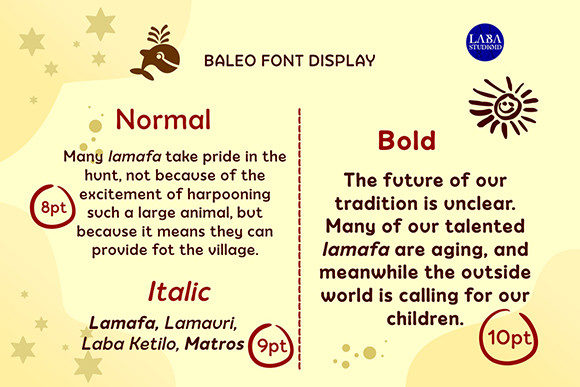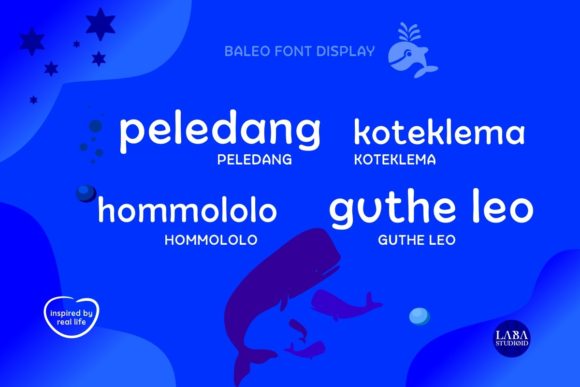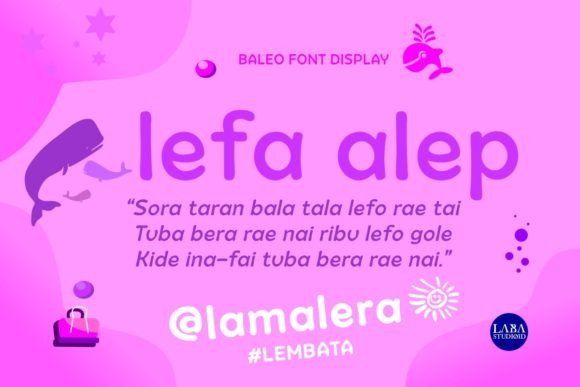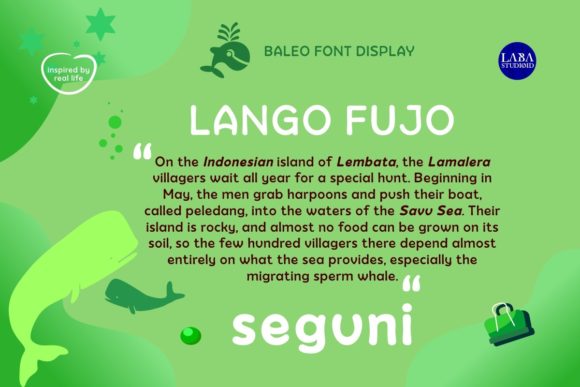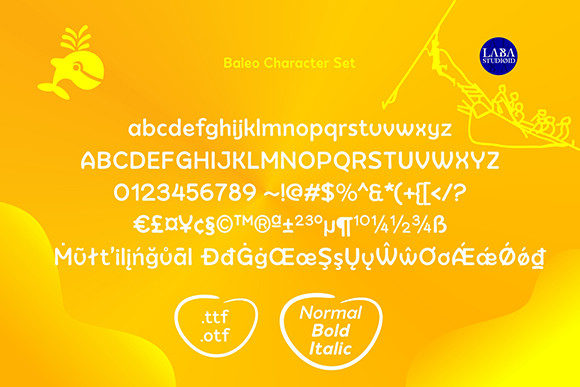
Baleo Font: The Ultimate Clean and Vintage Sans Serif for Your Creative Projects
Are you a designer or crafter looking for a font that exudes a sense of cleanliness, vintage charm, and sophistication? Look no further than Baleo Font. This stunning sans serif font is perfect for a wide range of creative projects, from logotypes and headlines to corporate identities, brand identities, and more.
What is Baleo Font?
Baleo Font is a clean, vintage-styled, and neat sans serif font that is designed to help you create visually appealing and professional-looking designs. Its sleek and modern aesthetic makes it an ideal choice for designers and crafters who want to add a touch of elegance and sophistication to their work.
Key Features of Baleo Font
So, what makes Baleo Font so special? Here are some of its key features:
• Clean and Neat Design: Baleo Font boasts a clean and neat design that makes it perfect for use in a variety of creative projects.
• Vintage Styling: With its vintage styling, Baleo Font adds a touch of nostalgia and charm to any design.
• Sans Serif: As a sans serif font, Baleo Font is highly legible and easy to read, making it perfect for use in body text and headlines.
• Highly Versatile: Baleo Font is suitable for use in a wide range of creative projects, from logotypes and headlines to corporate identities, brand identities, and more.
Use Cases for Baleo Font
So, what can you use Baleo Font for? The possibilities are endless! Here are some ideas to get you started:
• Logotype and Branding: Use Baleo Font to create a stunning logotype or brand identity that reflects your company’s values and personality.
• Headlines and Titles: Baleo Font is perfect for use in headlines and titles, adding a touch of elegance and sophistication to any design.
• Corporate Identity: Use Baleo Font to create a professional and cohesive corporate identity that reflects your company’s values and mission.
• Apparel Industry: Baleo Font is a great choice for use in the apparel industry, adding a touch of style and sophistication to any design.
• Poster and Print Design: Use Baleo Font to create stunning posters, flyers, and other print materials that grab attention and communicate your message effectively.
• Movie and Game Titles: Baleo Font is perfect for use in movie and game titles, adding a touch of excitement and adventure to any design.
• Magazine and Book Design: Use Baleo Font to create visually appealing magazine and book designs that engage readers and communicate your message effectively.
• Comics and Cartoons: Baleo Font is a great choice for use in comics and cartoons, adding a touch of fun and playfulness to any design.
• Social Media and Website Design: Use Baleo Font to create a cohesive and professional-looking design for your social media channels and website.
Why Choose Baleo Font?
So, why should you choose Baleo Font for your creative projects? Here are just a few reasons:
• Unique and Distinctive: Baleo Font is a unique and distinctive font that will help you stand out from the crowd.
• Easily Readable: Baleo Font is highly legible and easy to read, making it perfect for use in body text and headlines.
• Highly Versatile: Baleo Font is suitable for use in a wide range of creative projects, making it a great addition to any designer’s toolkit.
• Professional and Sophisticated: Baleo Font adds a touch of professionalism and sophistication to any design, making it perfect for use in corporate identities, brand identities, and more.
In conclusion, Baleo Font is a stunning clean, vintage-styled, and neat sans serif font that is perfect for a wide range of creative projects. Its unique and distinctive design, highly legible and readable style, and highly versatile nature make it a great addition to any designer’s toolkit. Whether you’re a designer, crafter, or DIY enthusiast, Baleo Font is sure to become a favorite in your creative arsenal.